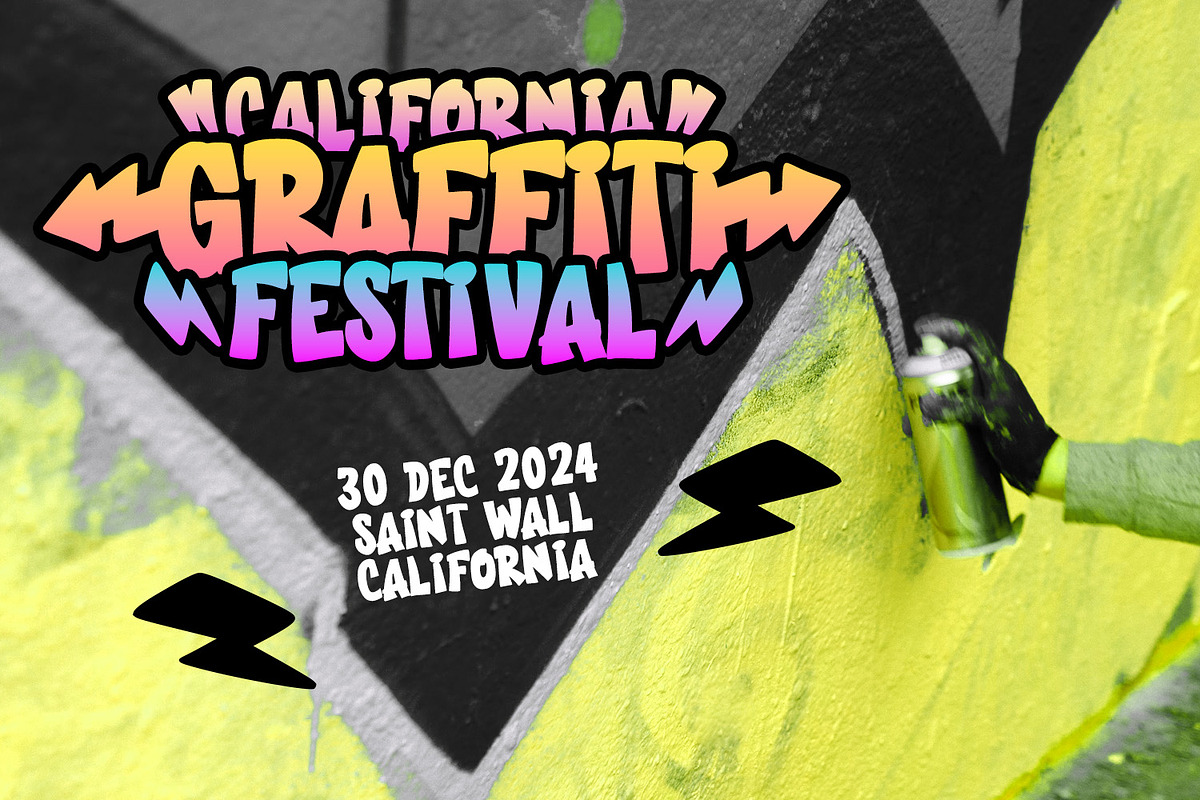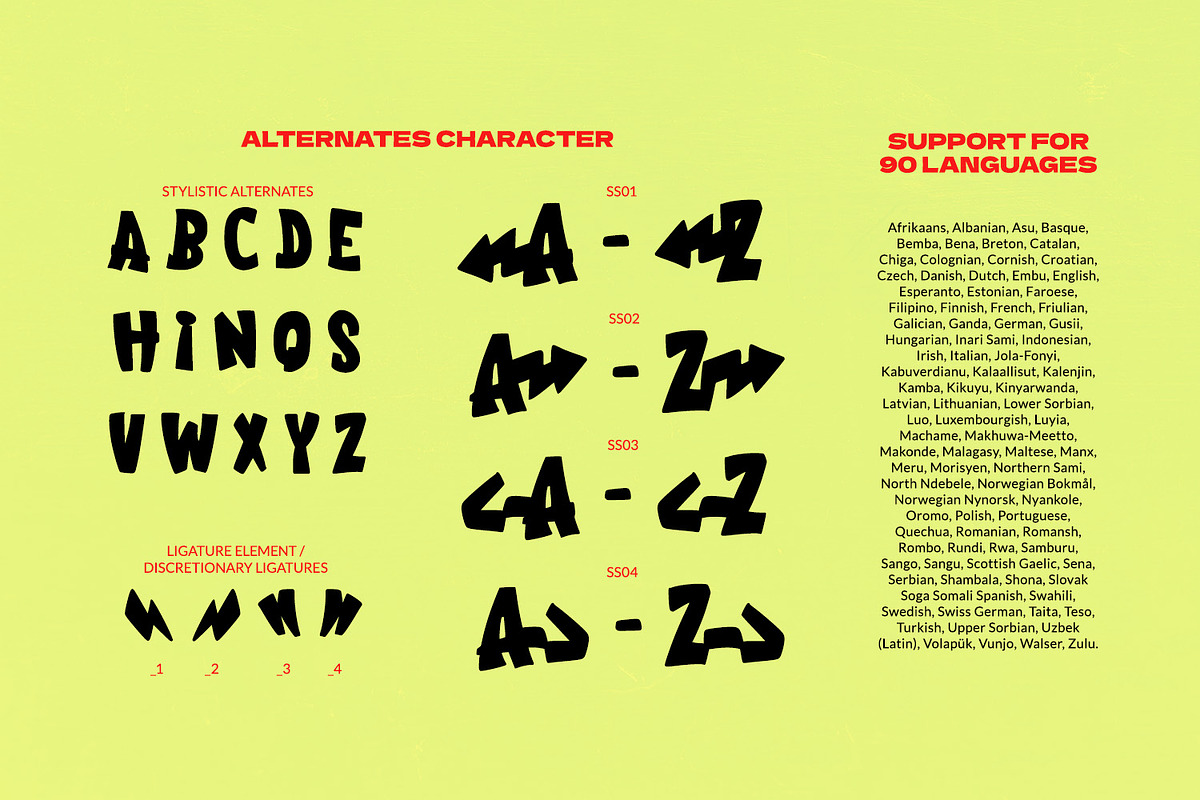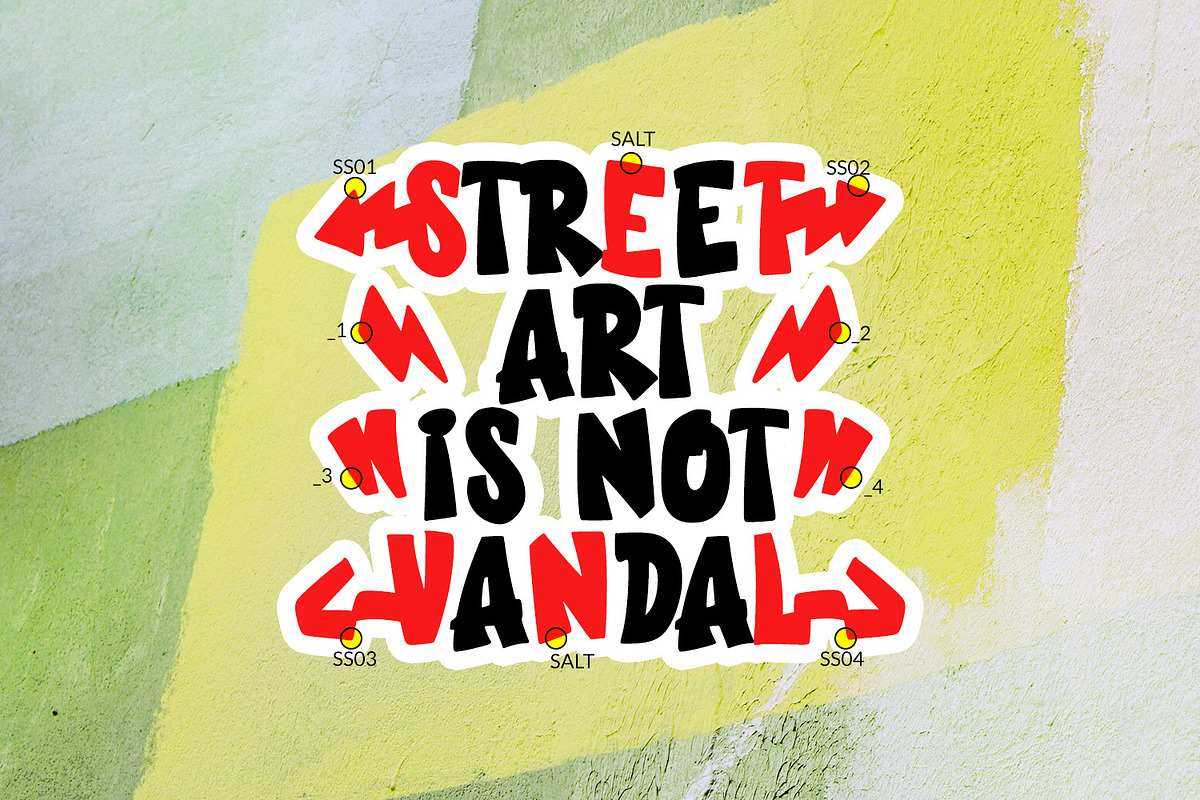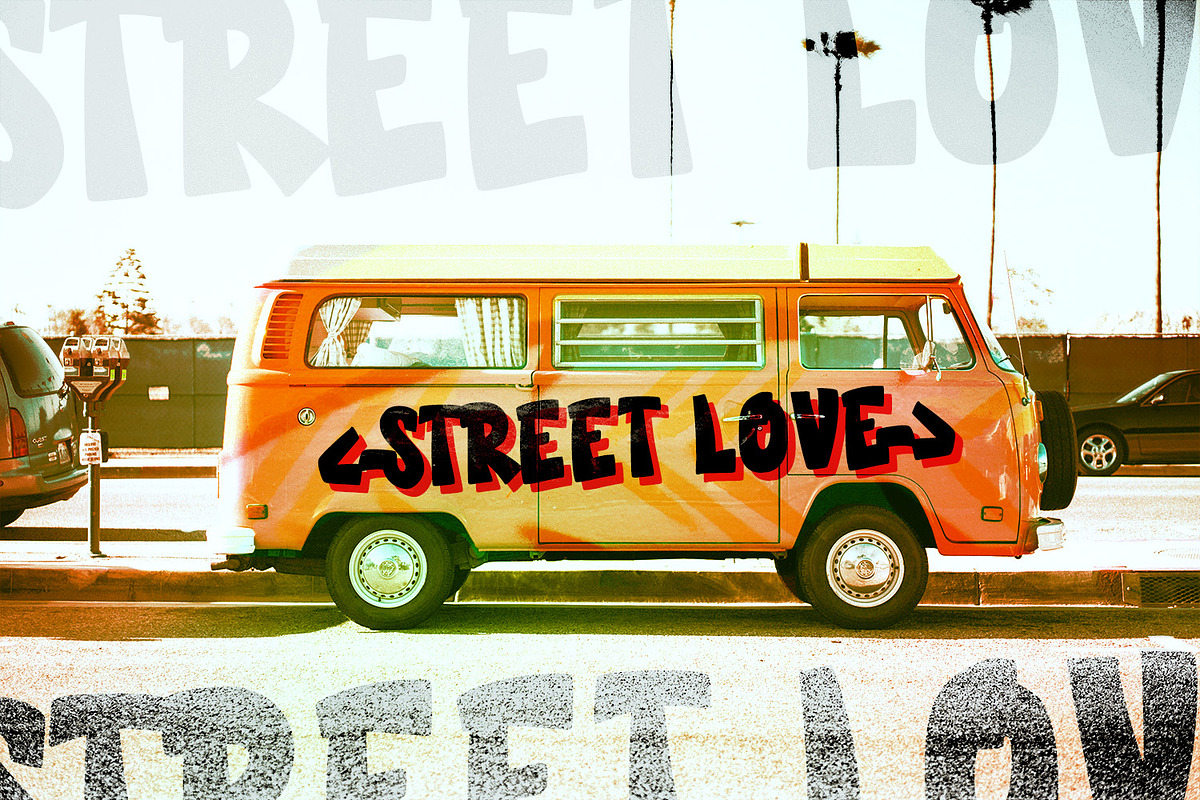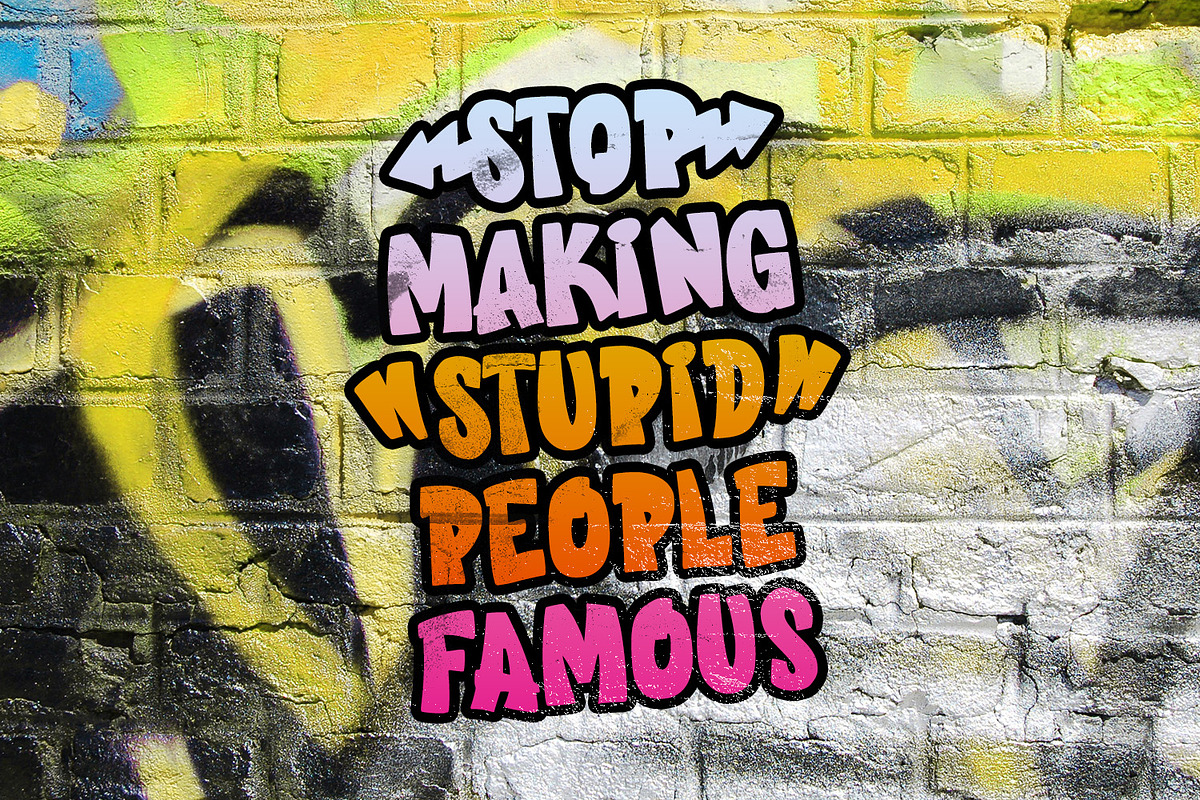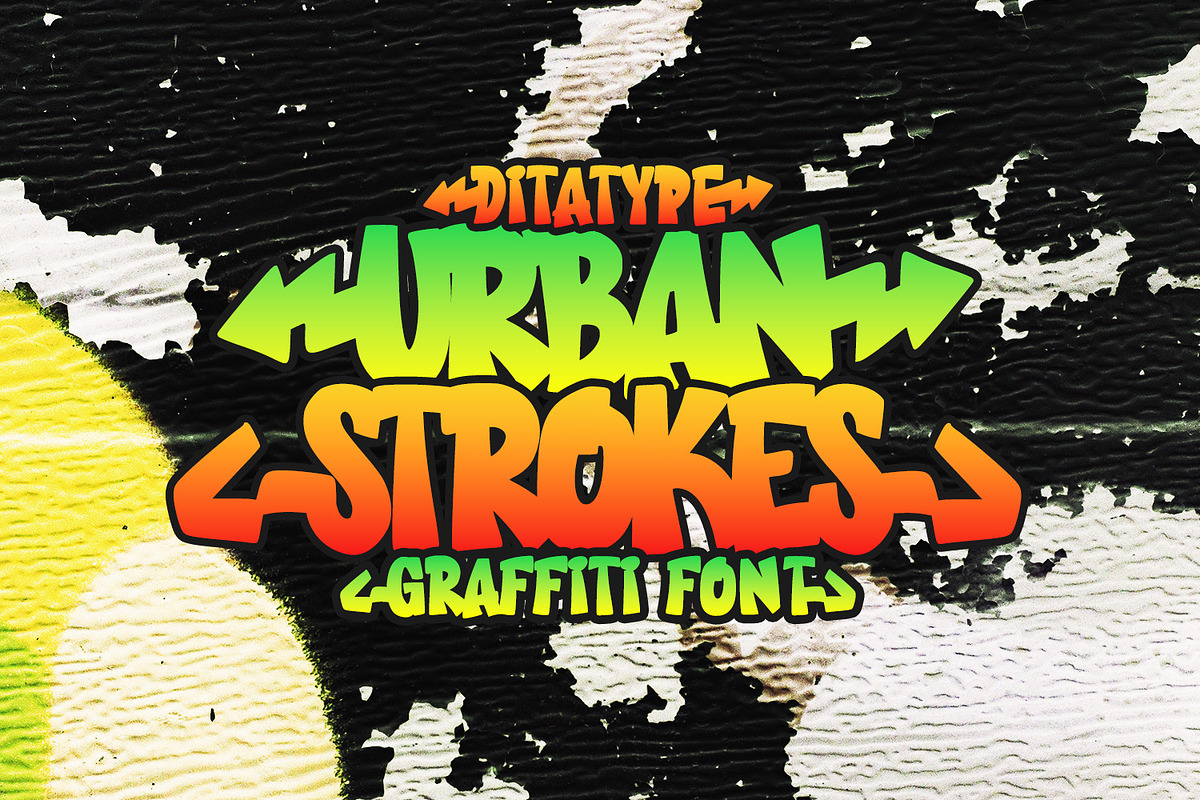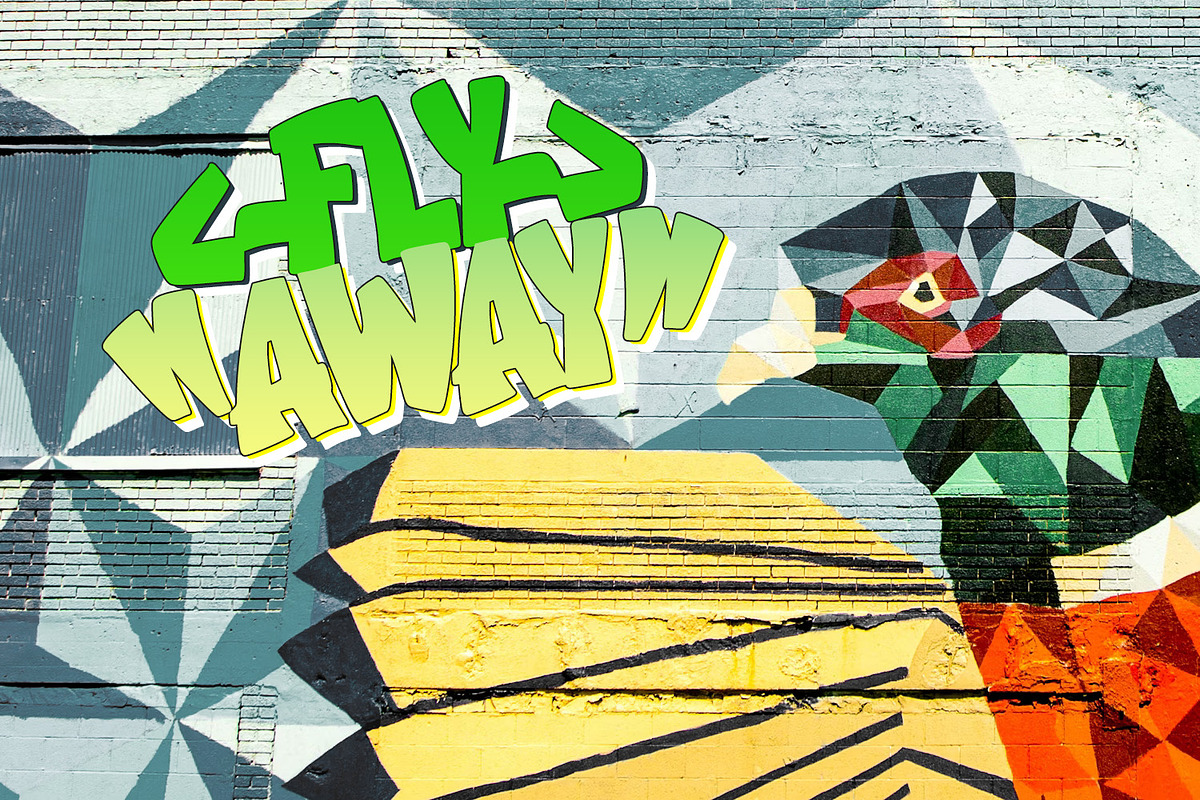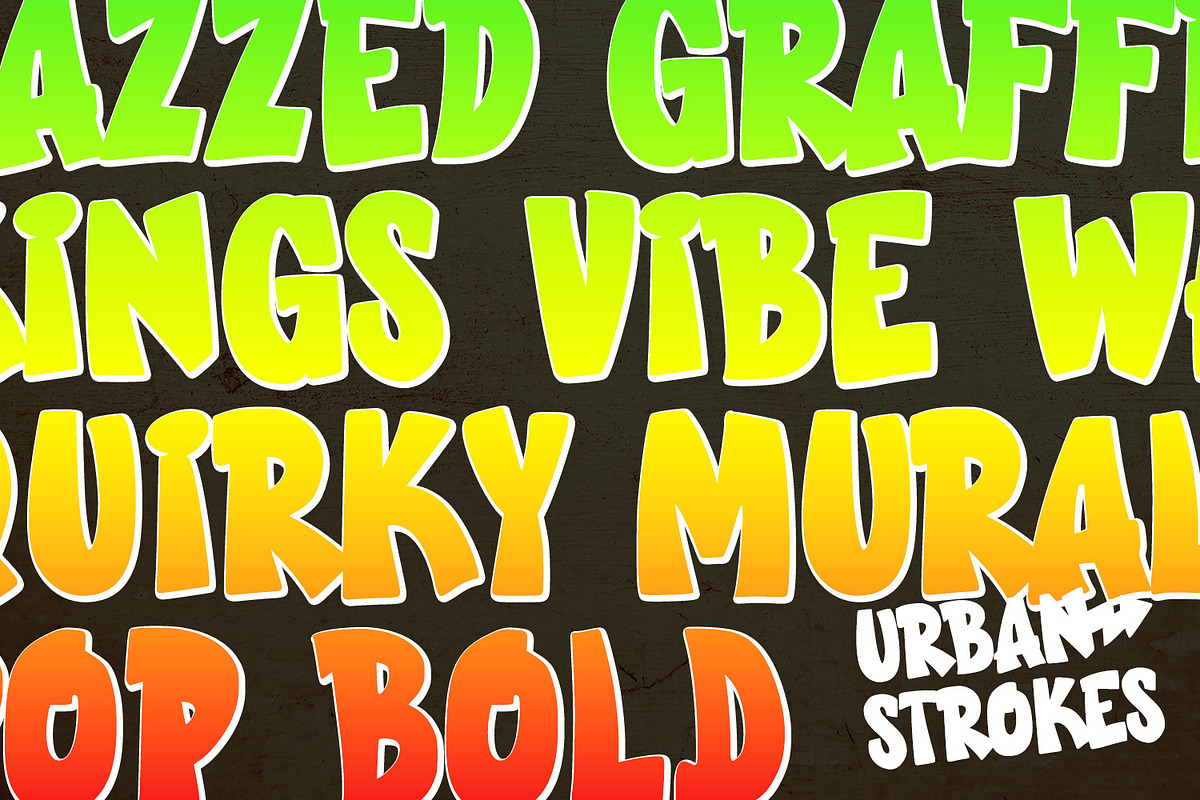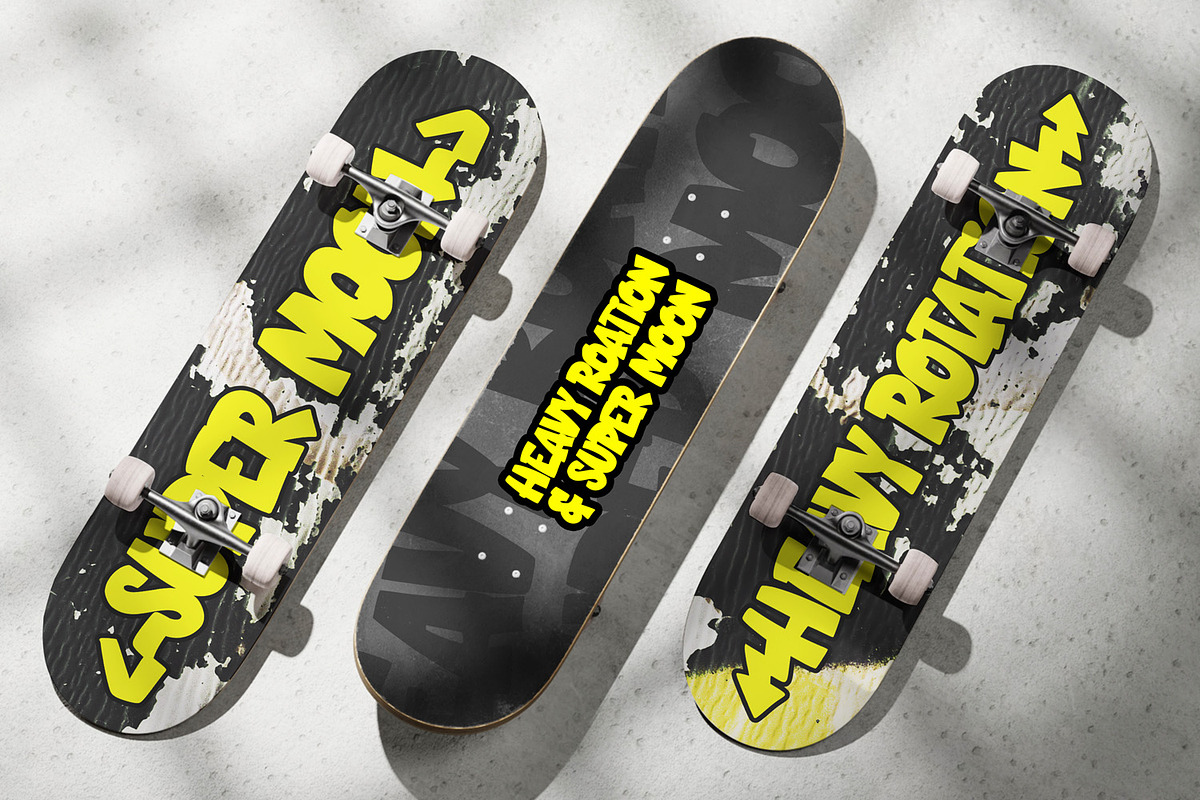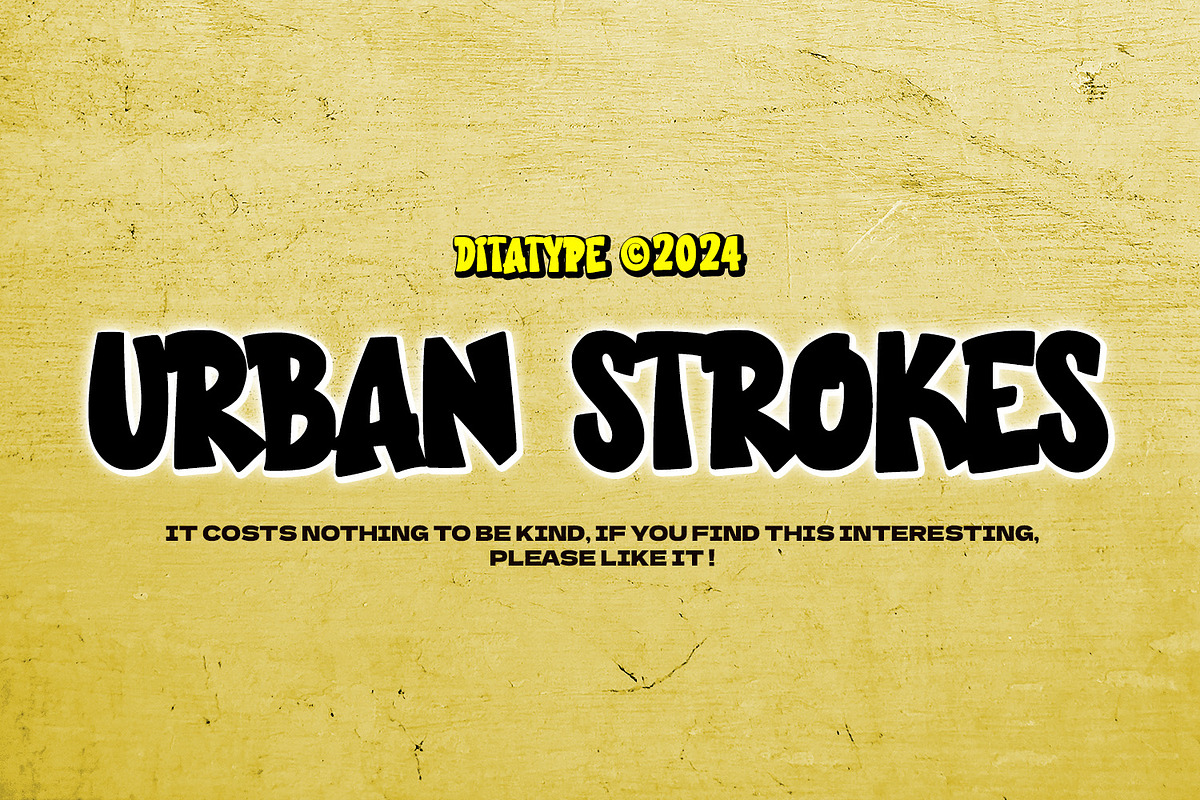
Urban Stroke
Urban Stroke is a bold, all-caps graffiti font designed with an urban flair. Its bubble-shaped letters feature consistent proportions, delivering a balanced, eye-catching style. With its vibrant and playful look, Urban Stroke infuses any design with modern street culture energy and standout appeal. In addition, enjoy the features here.
Urban Stroke fits in logos, posters, branding materials, print media, editorial layouts, and many more designs. Find out more ways to use this font by taking a look at the font preview.